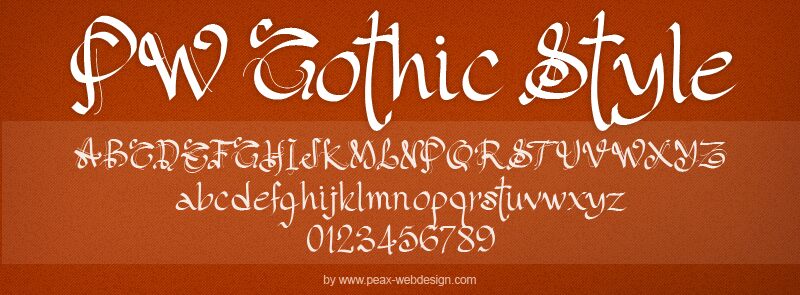
PW Gothic Style is a free calligraphic display font with theatrical, sharply pointed lettering. Broad black strokes narrow abruptly into hairlines, and long looping flourishes sweep above and below the main forms. Its silhouette is restless and ornate.
A fantasy book cover is its most convincing setting, since the exaggerated lettering lends titles the drama of an enchanted manuscript and also suits role-playing game graphics or dark music posters. On event invitations, pointed hooks and curling lines can echo decorative borders, crests, or other ornamental details, as if drawn with the same pen.